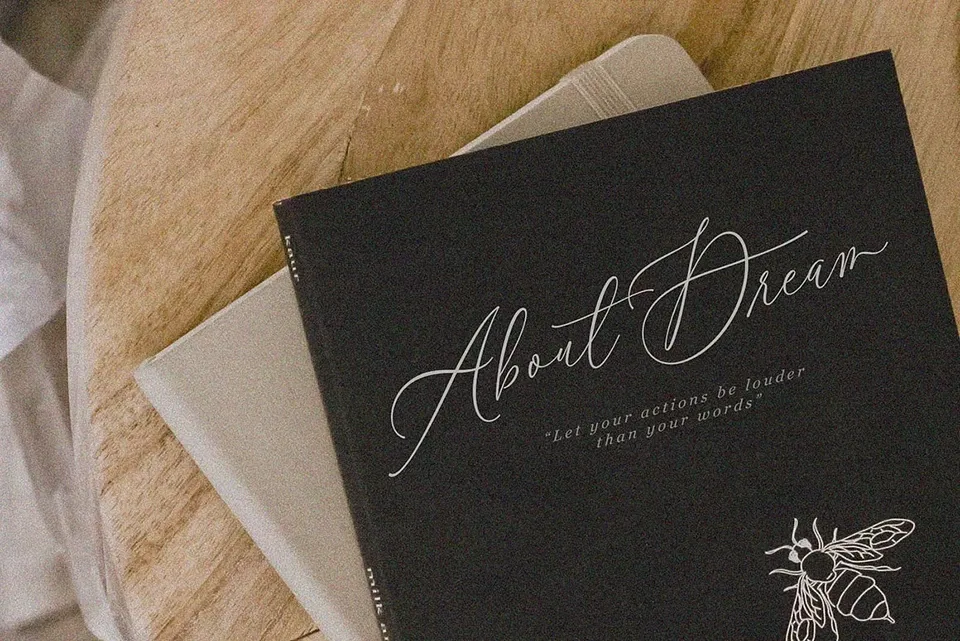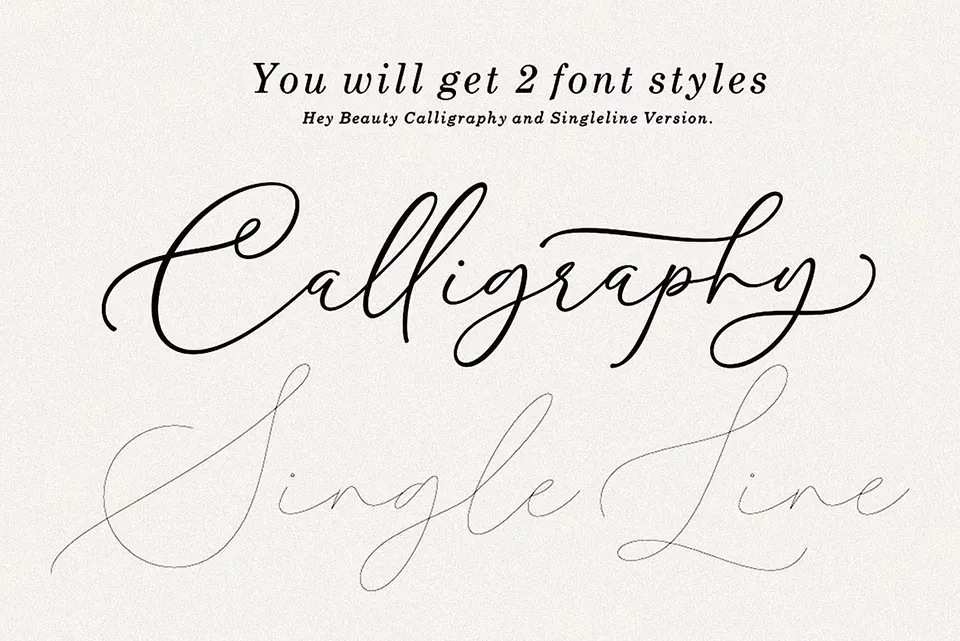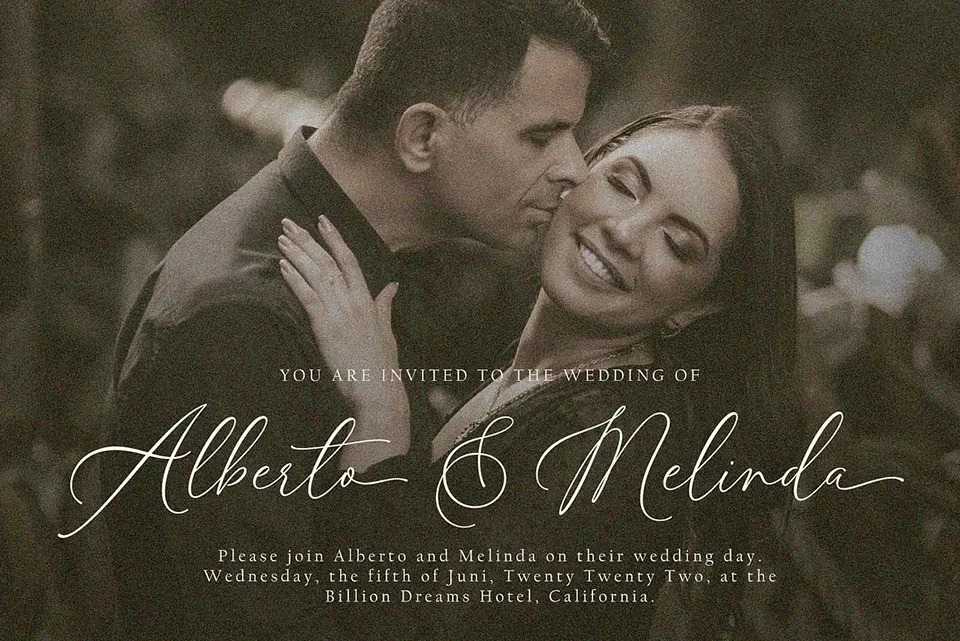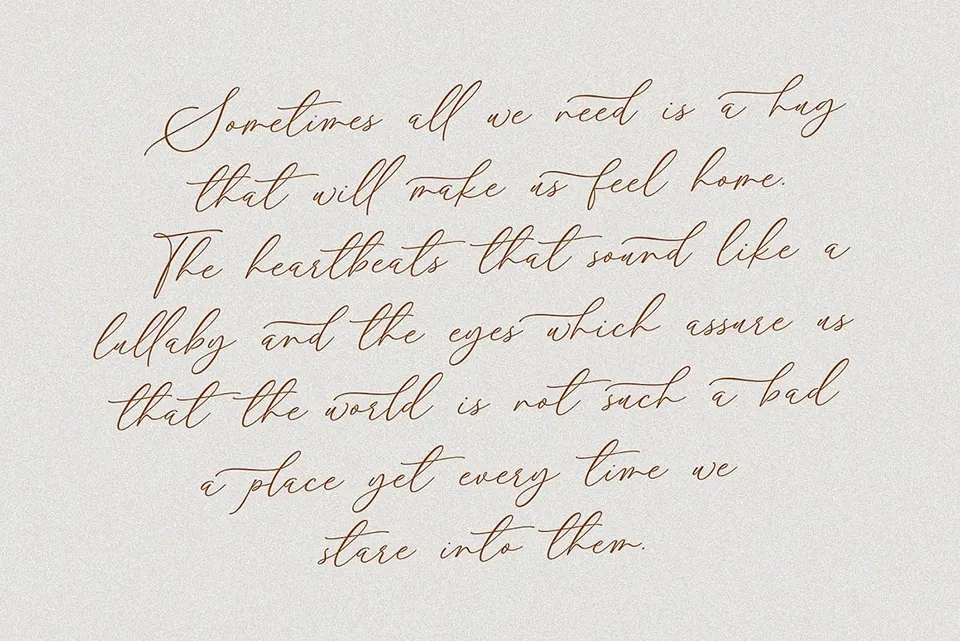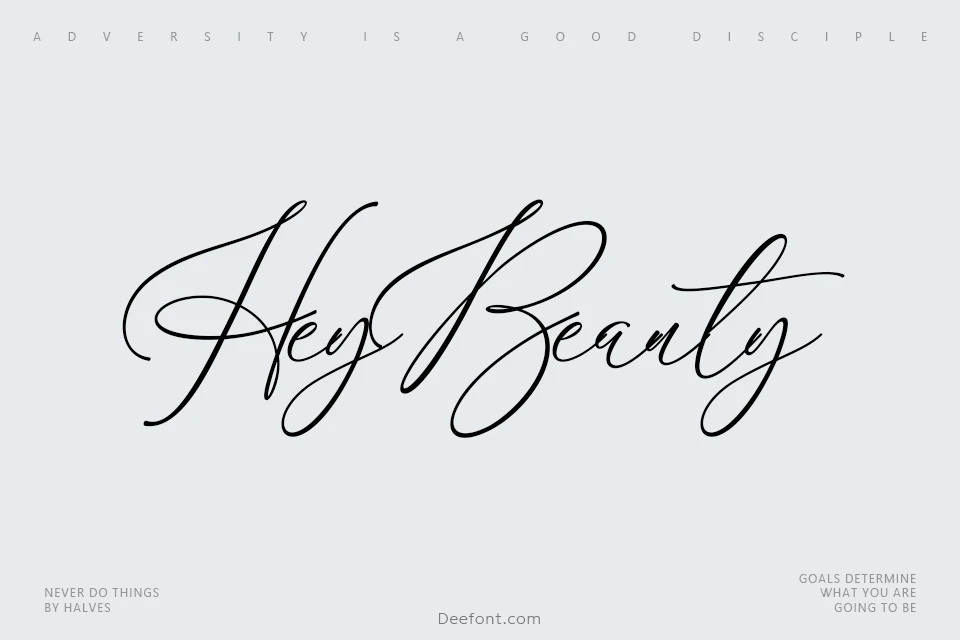
Hey Beauty Font
Hey Beauty Font is a beautiful calligraphy script designed to bring elegance and charm to your creative projects. With its handmade, organic strokes and balanced style, this font is perfect for romantic invitations, wedding materials, branding, and more. The font offers ligature glyphs and multilingual support, making it versatile and suitable for a wide range of uses. Fall in love with its distinct and timeless look, and let your designs shine with Hey Beauty Font.